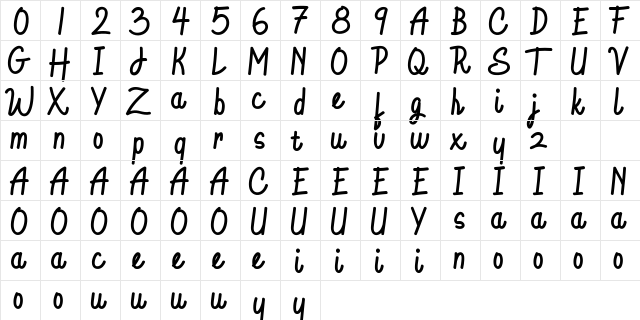
Goodtype-Free Regular
Design Context for Goodtype-Free Typeface
Goodtype-Free is a composed and adaptable typeface that performs quietly and consistently across a wide range of design contexts.
Pro Tip: Use Goodtype-Free in both headline and body roles to test its range before committing to a single application.